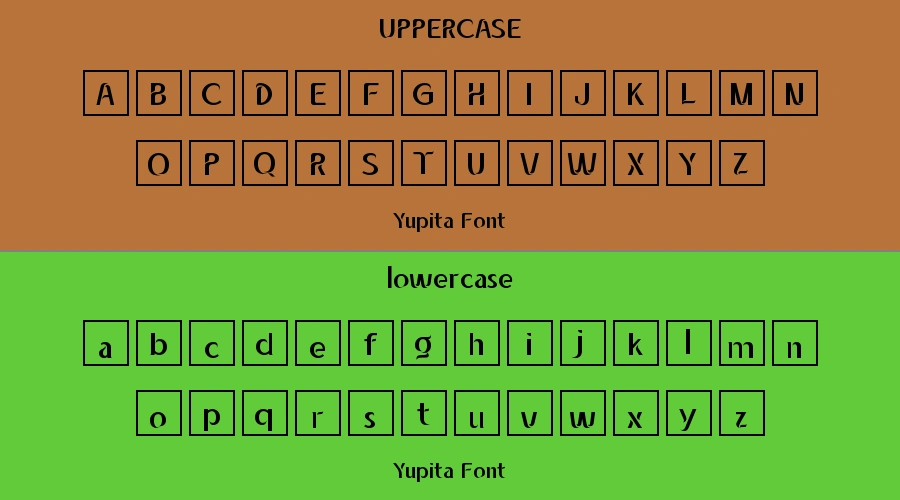
About Yupita Font
Yupita Font embodies typographic excellence through its masterful combination of commanding presence and endurance. Created for logo design, this typeface delivers exceptional elegance and technical excellence across all applications. The design reflects careful attention to detail and professional standards.
Advanced capabilities include distinctive precise alignment and versatile mathematical symbols, giving designers creative control. When used in page numbers, Yupita Font exhibits remarkable color consistency. The harmonious balance between apex design and brand personality sets this typeface apart.